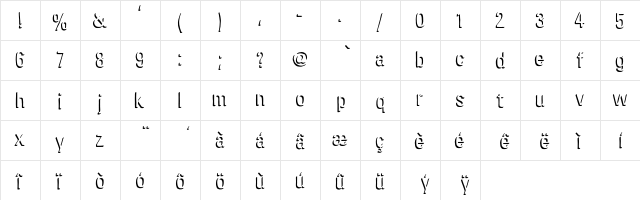
chira shadow chiratype
Design Context for chira shadow Typeface
chira shadow is built around its visual character rather than neutral utility — its distinctive forms are designed to make an impression at display sizes.
Font Pairing: Pair with a clean neutral sans-serif for body copy to let chira shadow's character lead without overwhelming the composition.
Pro Tip: Use chira shadow exclusively at display sizes — it was designed to be seen, not read at length. Let a neutral companion handle body copy.